I used to hate handwriting fonts. They looked clunky. The spacing and kerning were always off, and very few handwriting fonts had alternate letter forms — the one element that could’ve made it look (at least a little) more realistic. I sensed that most of them were based on a poor handwriting sample to begin with, then made worse when outlines were rendered without expertise.
So, when I was approached to develop a handwriting font for the landscape painter Tony Foster to use throughout his book, the project didn’t interest me at first. Then, I started thinking.
Just because other handwriting fonts were lacking, didn’t mean that they all had to be that way. And if I created one, it couldn’t be that way. I accepted the project, undertook a challenge, and began a long journey to discover what makes a handwriting font look authentic.
Tony is known for his handwritten notes that accompany every painting he has created. These were an essential component of making this book feel personal and complete. Handwriting is unique to the individual, but the actual little things that make it unique are practically universal.
As I studied Tony’s handwriting, I immediately found that, like many people, he had a semi-connected handwriting style. Also, many of his letterforms often changed their appearance entirely depending on adjacency. There could be four variations of a letter, depending on where it was written — the beginning of a word, end of a word, middle of a word; connected or unconnected to another letter.
To recreate his handwriting into a typeface, I’d need to:
I typed up everything Tony had written from his handwriting samples and indexed it. I then developed a letter frequency guide to determine how many variations of each letter I’d need. The rest was time-consuming but fairly easy to complete.
When I delivered the final typeface, I got great feedback — and I’m pretty sure that Tony himself appreciated not having to handwrite a bunch of entries for his book. But what I was proudest of was the beginning of a process that could truly understand and replicate an individual’s unique, handwritten script.
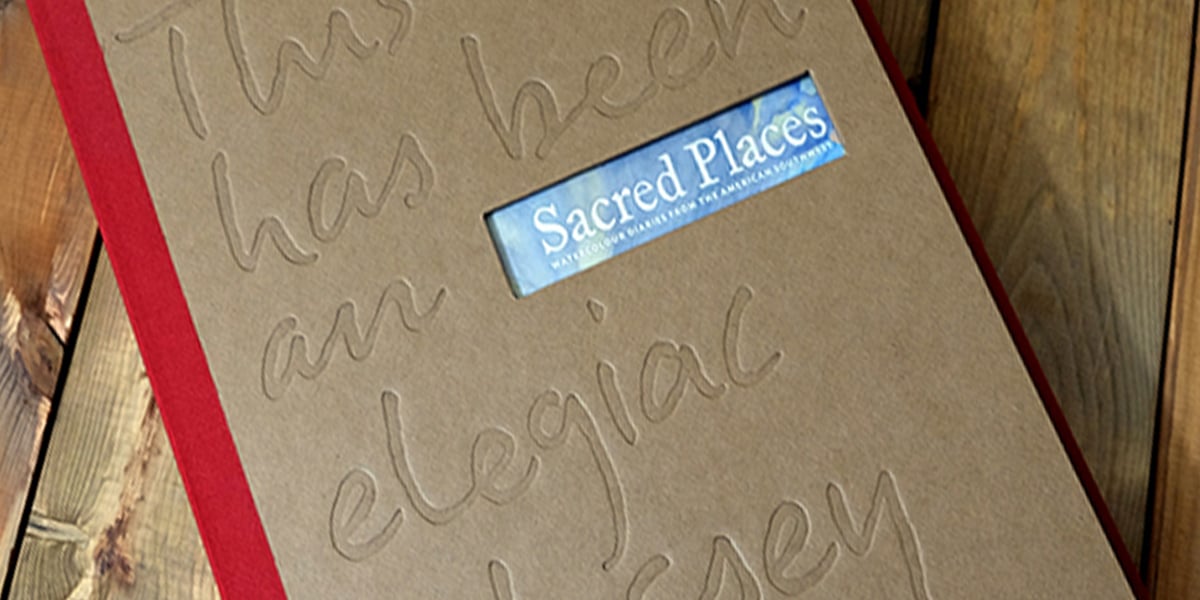
I’m intrigued by how people handwrite in general – teaching hand lettering to over 2,000 people only encourages this obsession! When a similar project came up, I was delighted to be able to continue my work.
When approached by St. Jude Children’s Hospital to develop a series of handwriting fonts for its internal use, I immediately agreed to the project. I was excited to see what else I could learn, what additional processes I could develop, and if my findings could be applied to my own typefaces in the future
To extract complete handwriting samples from this wider pool of handwriting donors, I needed to develop a serious intake template.
I began with “Kern King” — a testing string that the typeface designer Leslie Cabarga assembled and gifted to the type community. It’s excellent for testing fonts, but I wasn’t sure how many of the letter combinations it contained.
In my opinion, a person’s handwriting is as unique as their fingerprint. Therefore, everyone has individual ways of connecting letters and writing letter variants, depending upon context. I needed the handwriting samples to contain as many letter combinations as possible to fully capture what made them unique.
After further research, I identified all of the two and three letter combinations found in the English language. My goal was to include the top 95% of these combinations when obtaining handwriting samples. With the “find” tool in Microsoft Word, I’d search for each combination and if it didn’t exist, I’d add in a word that used it.
The resulting sample text ended up being 480 words long. It also took about 35 minutes to handwrite. My assistant Dai Foldes had an idea — the sample text could be improved if it read more like a story as opposed to a long string of words.
At first, I rejected this idea. After all, it would take some kind of genius to write a document like this — with its cumbersome requirements of letter frequency and variations, along with numerals, punctuation, diacritics, symbols, and still tell a story, while taking no more than 40 minutes of the handwriting time. But, Dai made a compelling argument: it would likely elicit a better handwriting sample, which would lead to a better typeface in the end
Suddenly, it dawned on me. I happened to know someone with the creativity, attention to detail, superior grasp of the English language — the sheer brilliance required to take on and complete this project.
My older sister didn’t study for the SATs, but only missed four questions on it. She holds a degree in technical writing from the University of Washington. She loves solving puzzles of all kinds, and I’ve often said that she is the perfect person to have in an escape room with you. I asked my big sister if she would be willing to tackle this puzzle with me because I don’t know of anyone else who could have done it. She accepted.
LAURA WORTHINGTON is a typeface designer from Washington State. After training and working as a graphic designer since the mid ‘90s, she turned her lifelong fascination with lettering and typography into a business, publishing her first typeface in 2010. She has since published more than 100 typefaces and designed custom faces for Fortune 500 companies. Laura’s faces are based on her own hand-lettering and calligraphy, a practice she continues to hone daily. You can explore her typefaces at Laura Worthington Design.